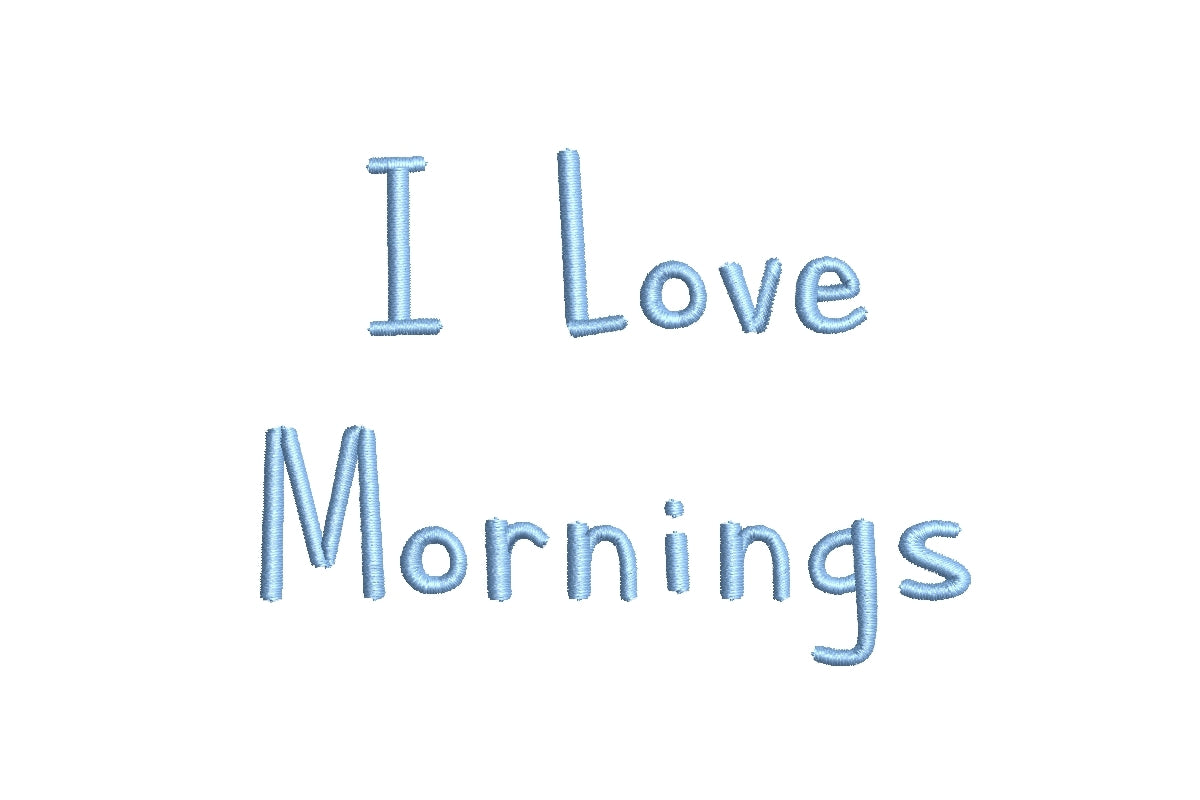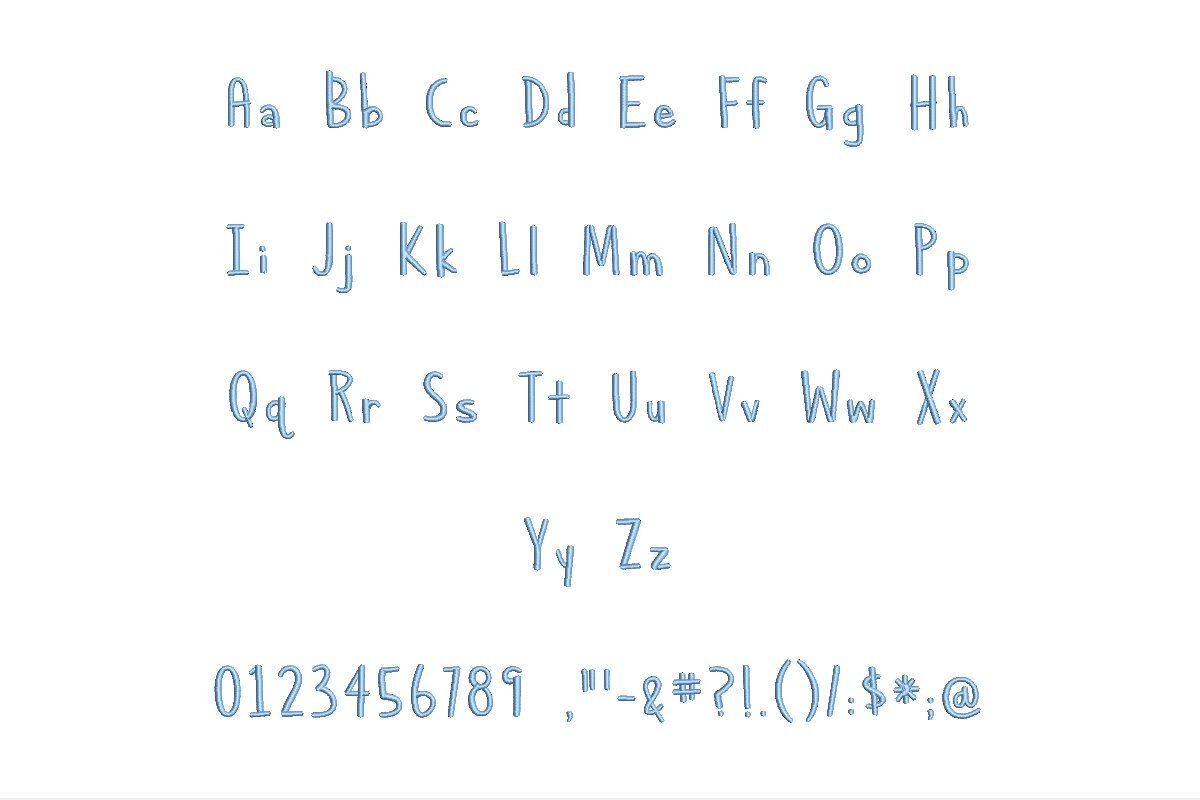
Introducing the "I Love Mornings ESA Font," your sunrise to embroidery excellence. This font seamlessly harmonizes with Wilcom Studio e4.5.6 and Hatch 3 versions and beyond, ensuring a compatibility that brightens your creative journey. Whether you're a seasoned embroiderer or a beginner, "I Love Mornings ESA" simplifies your digitizing and stitching with its seamless integration. Crafted with precision, this font infuses a touch of freshness and positivity into your designs. Elevate your embroidery projects with the "I Love Mornings ESA Font" and let the warmth of sunrise inspire your creations. Order now to start your day with creativity and achieve radiant results.